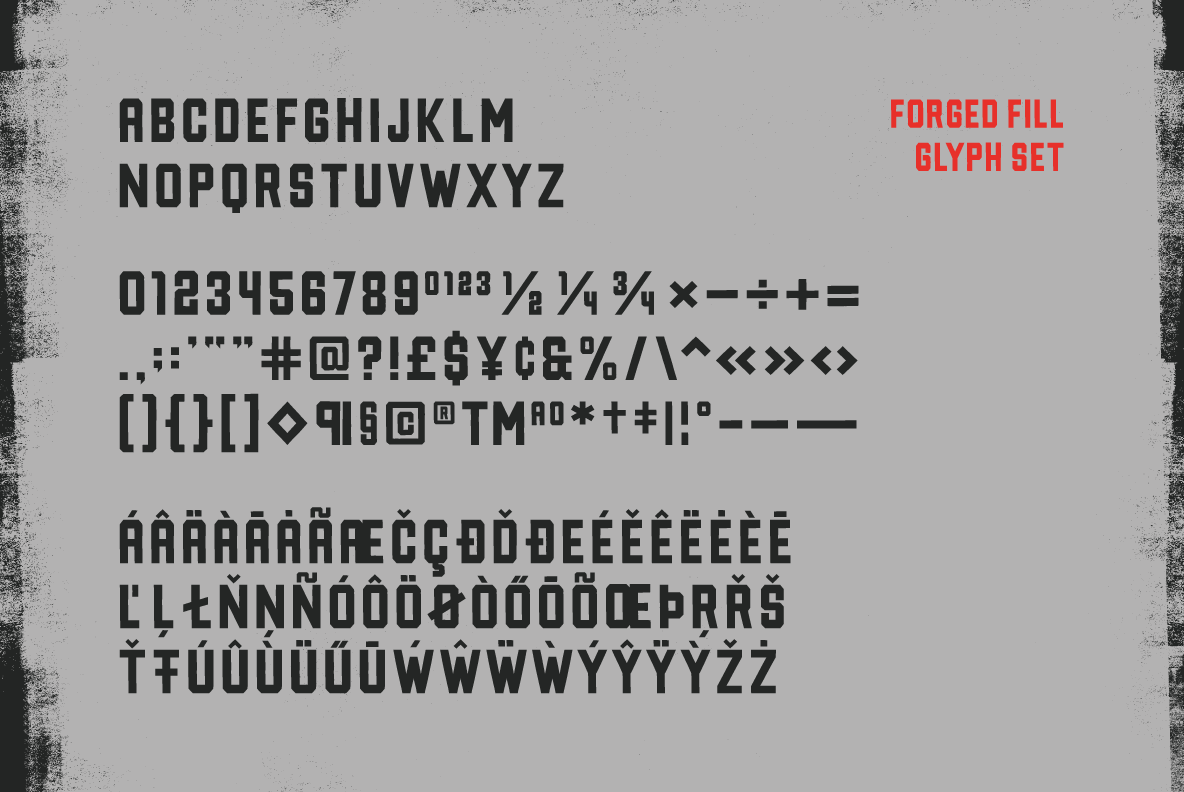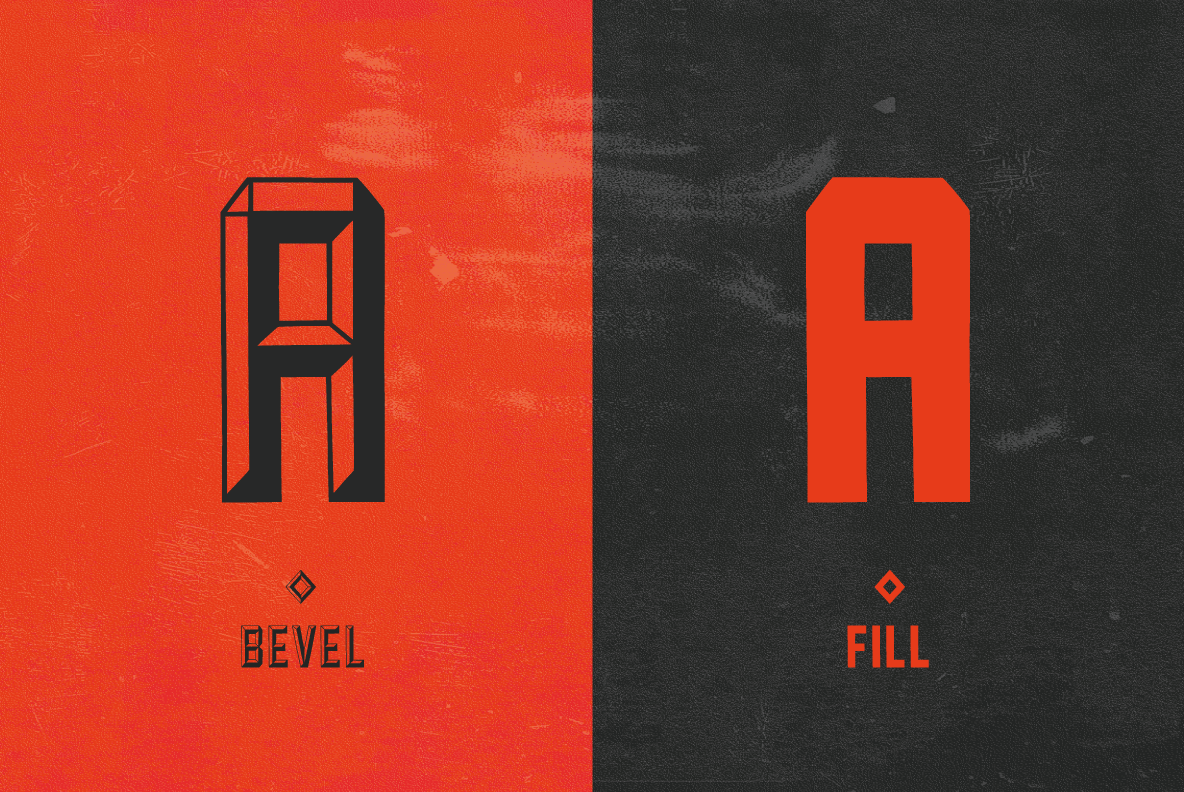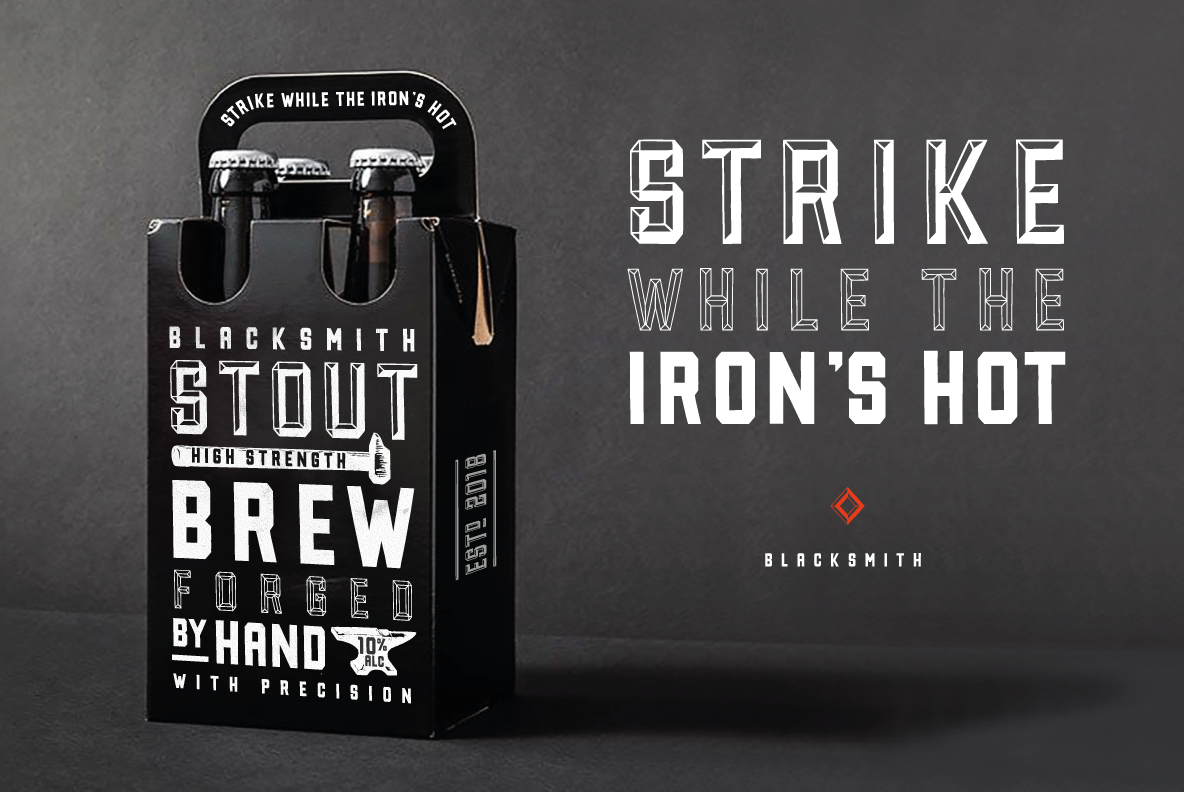
Hand forged with strength and precision – Forged is a bold, powerful typeface that stands strong. Handcrafted as if by a blacksmith, this typeface has its quirks and imperfections like any metalwork which gives it a unique character.
Forged Fill
Forged Regular
Forged Outline
Forged Bevel